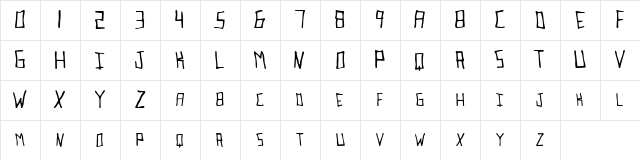
Brad Regular Free Font
Brad Regular
Brad is a composed and adaptable typeface that performs quietly and consistently across a wide range of design contexts.